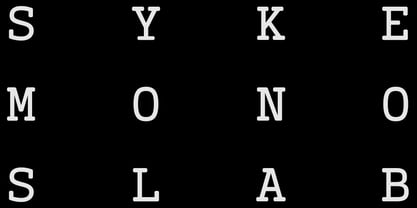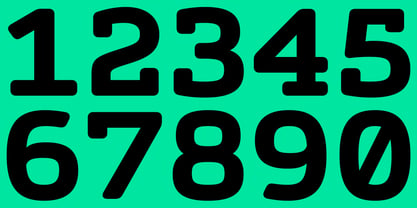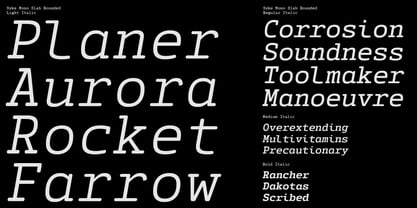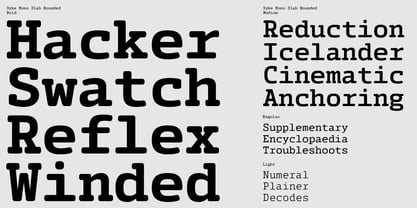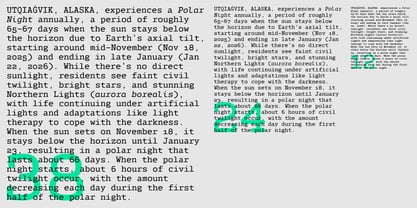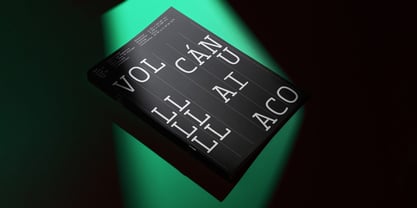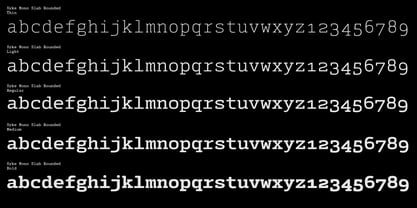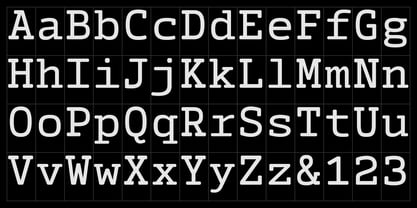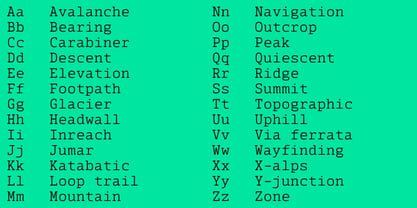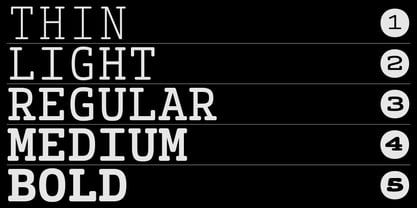
Syke Mono Slab Rnd
by The Northern Block
The Syke Mono Slab Rnd Font Family was designed by Jonathan Hill and published by The Northern Block. Syke Mono Slab Rnd contains 10 styles and family package options. More about this family
Syke Mono Slab Rounded is a contemporary monospaced typeface that combines the discipline of slab serifs with softened, rounded detailing. Its precise and consistent geometry, yet the curved terminals bring a warmth that makes text approachable and easy to read. The design maintains the strict rhythm of a monospaced system while introducing a more human character, striking a balance between engineered clarity and visual comfort. This duality makes it equally effective for coding environments, editorial use, and expressive branding.